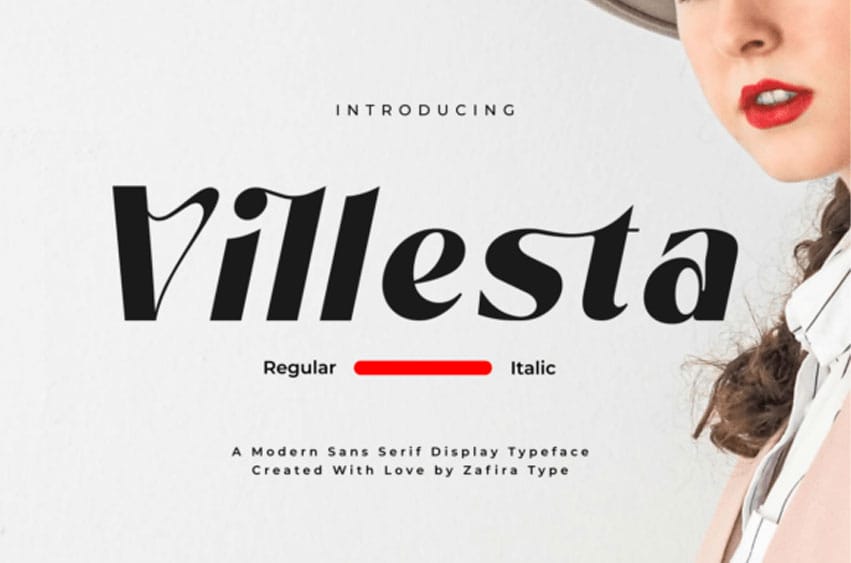
Villesta Font is a contemporary sans-serif marvel designed to exude a sense of simplicity, sophistication, and minimalist elegance. The smooth arcs and harmonized proportions of this font provide a diverse range of applications, making it perfect for everything from stellar branding solutions to eye-catching posters and crisp digital interfaces.
Presented in two primary styles, Regular and Italic, Villesta embodies design versatility. The Regular style projects a solid, professional demeanor, whereas the Italic style infuses your project with an energetic, conceptual feel—ideal for emphasizing key textual elements.
Villesta’s state-of-the-art design, combined with unparalleled readability, makes it the go-to resource for projects demanding a chic, modern, and stylish appeal.